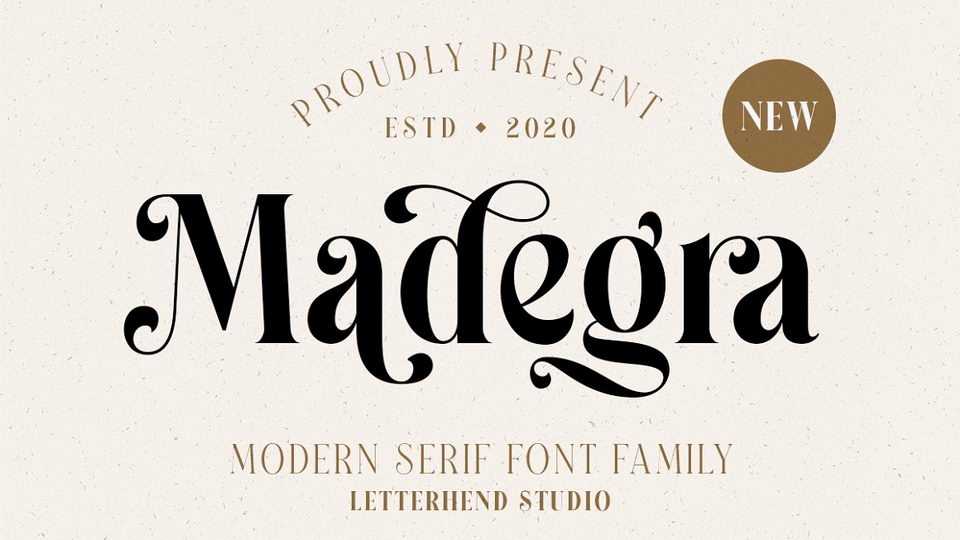
Download Madegra font, an elegant serif typeface with many alternates with swashes. The clean and neat of Madegra serif combined with the swirl swashes makes this font even more unique.